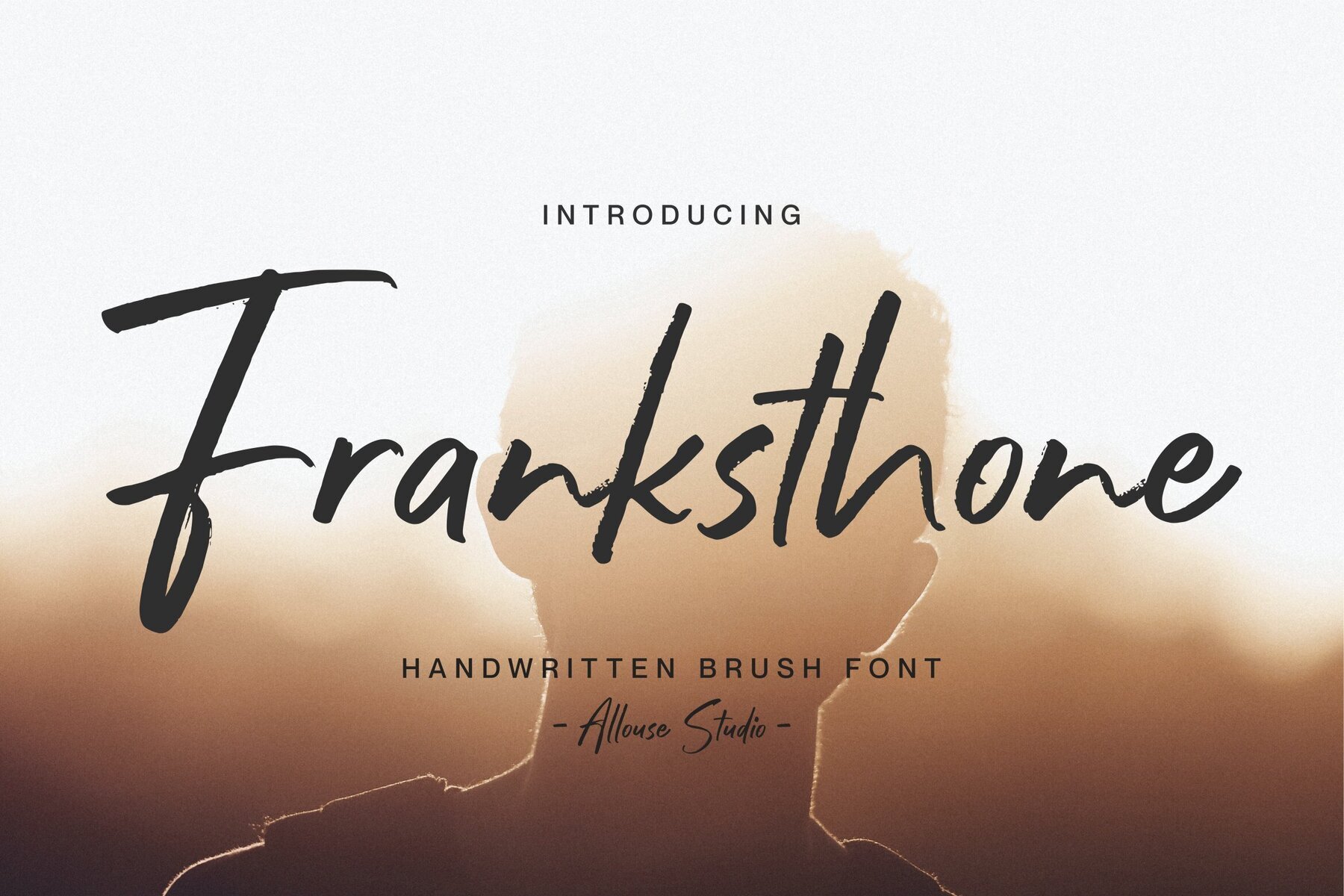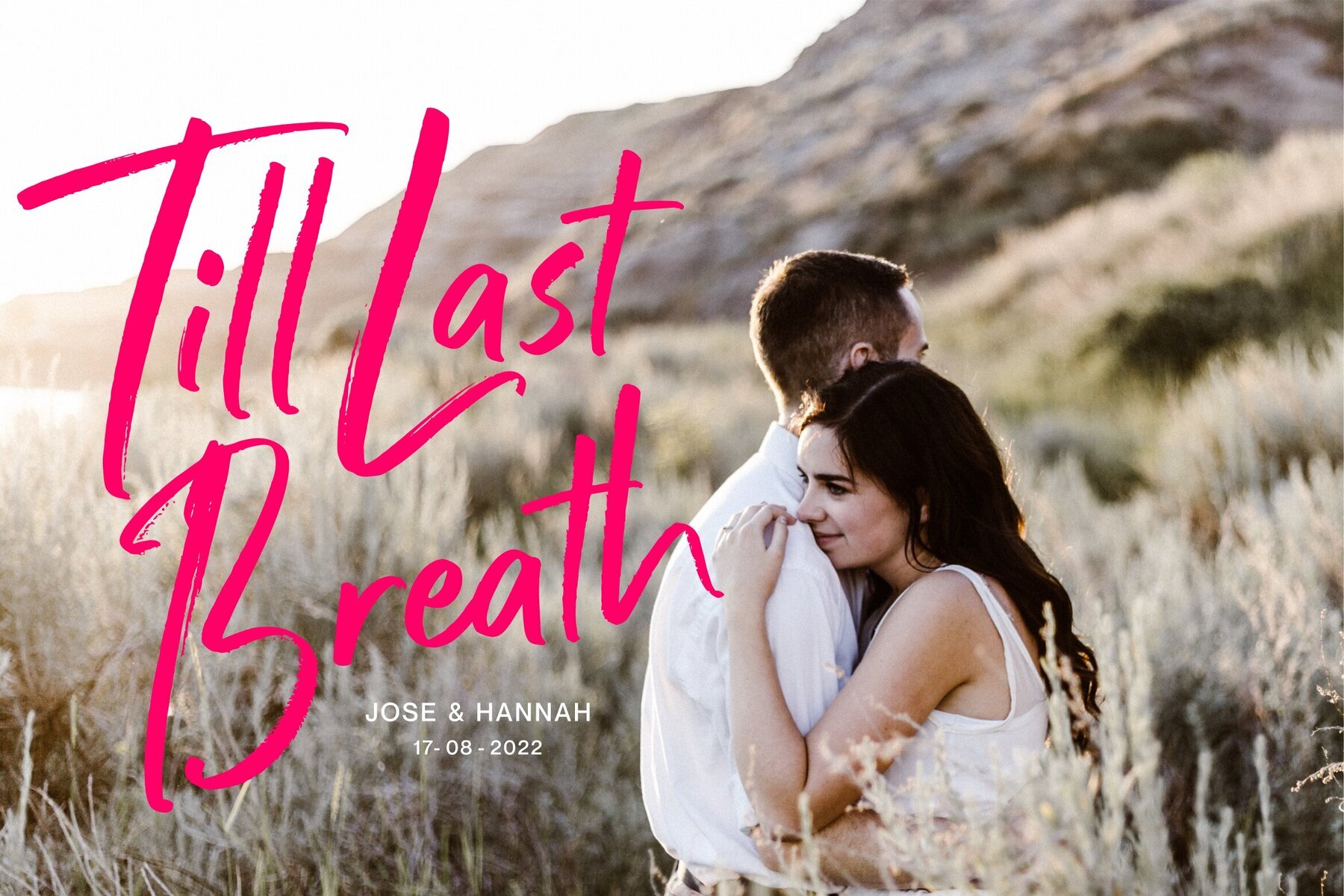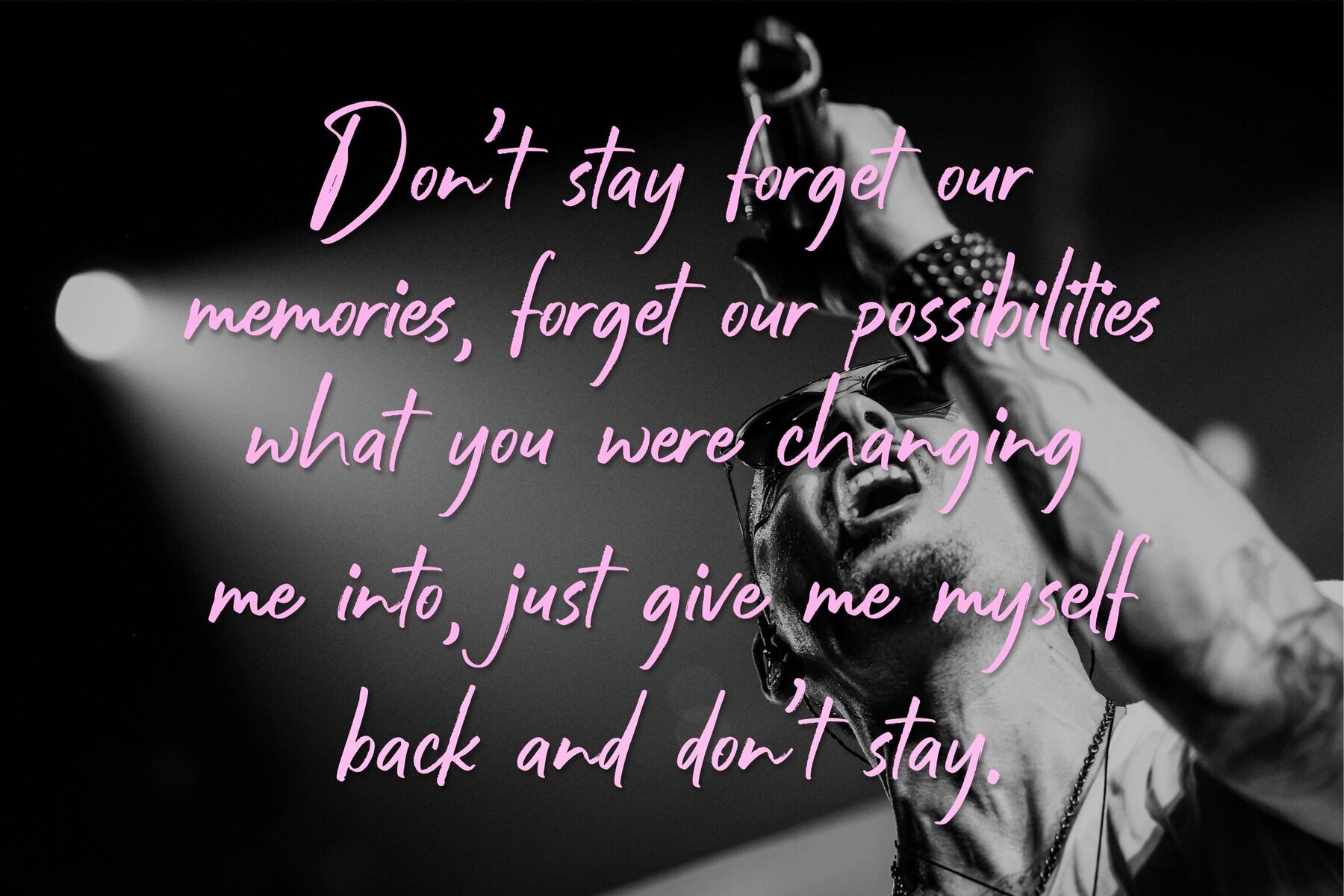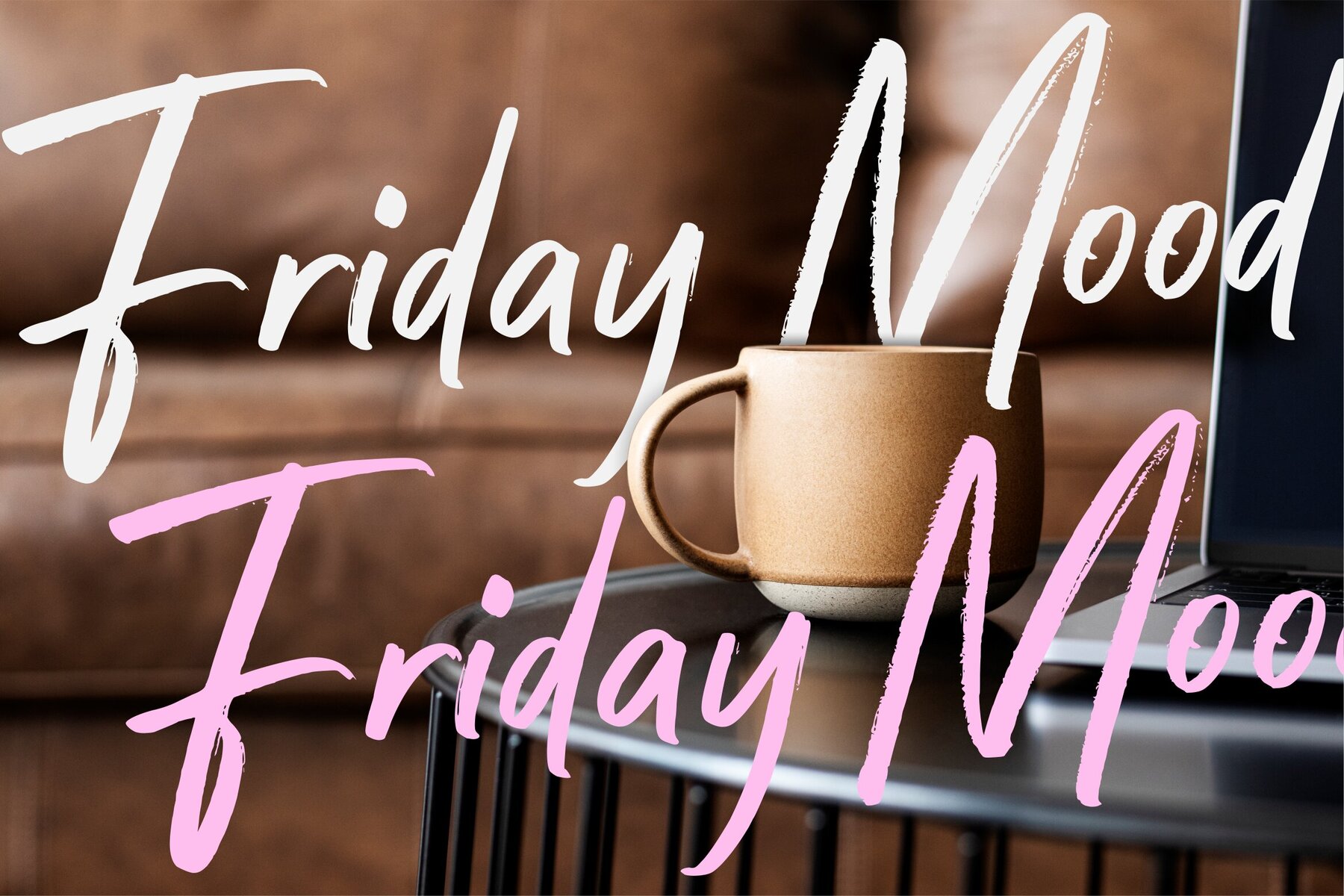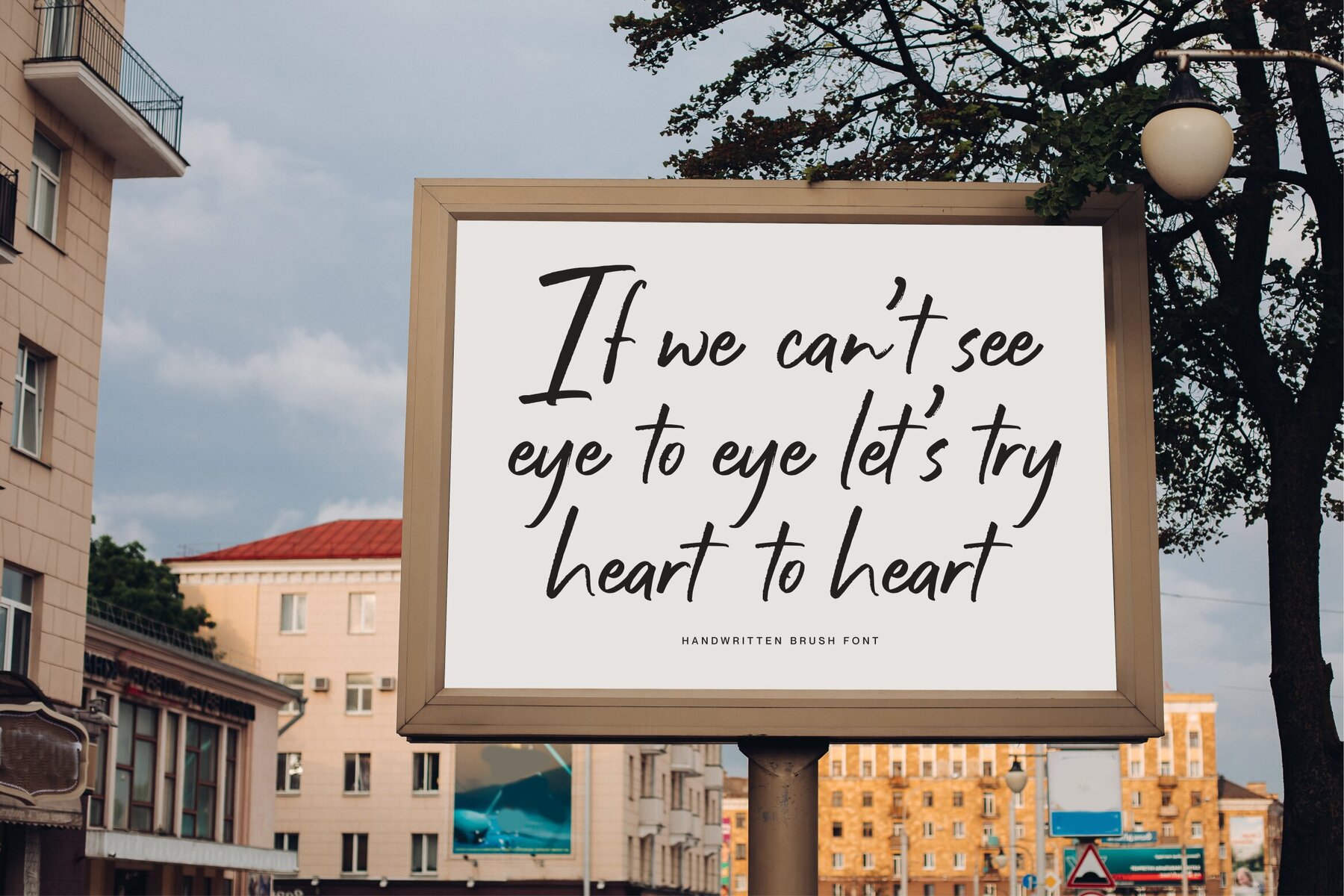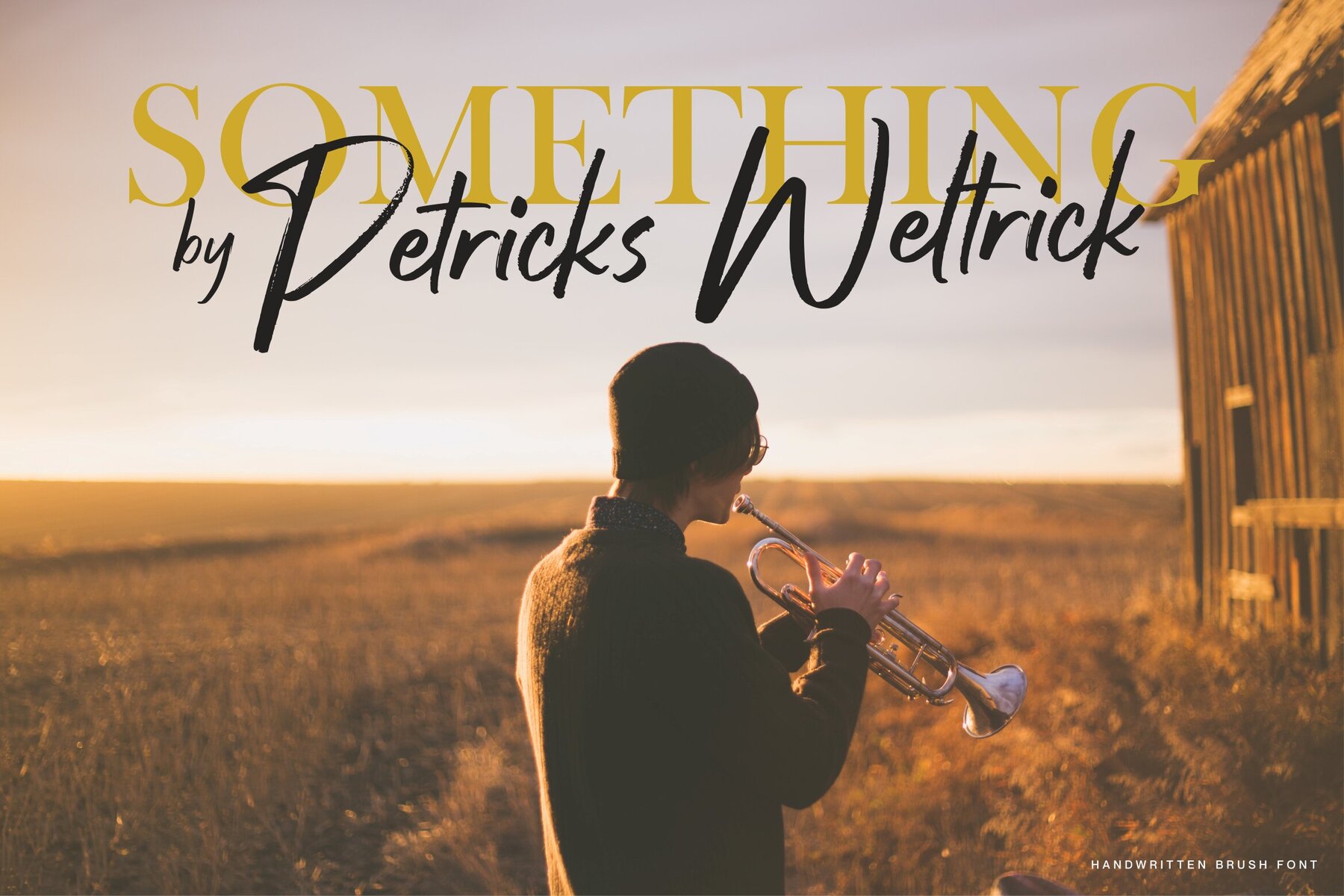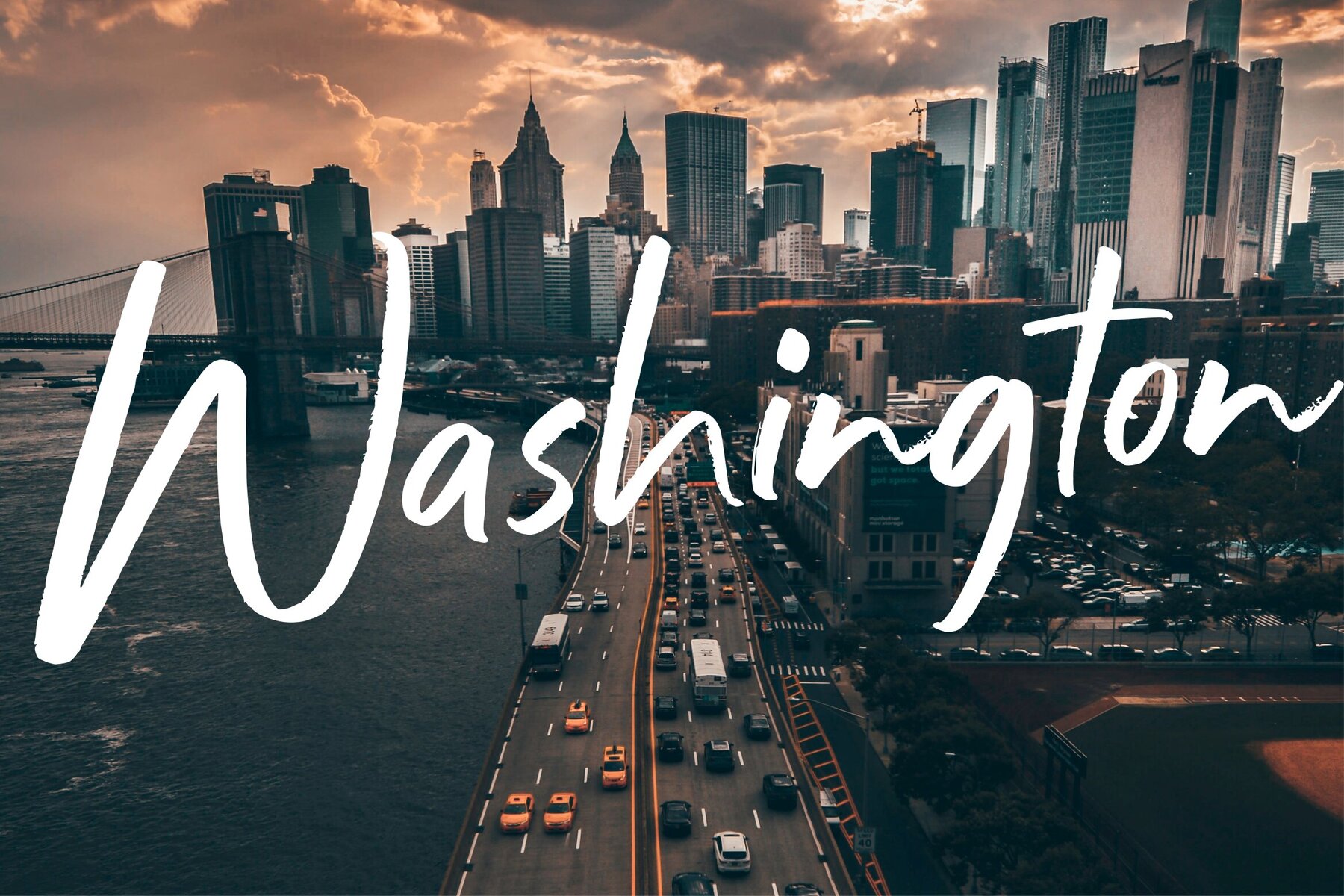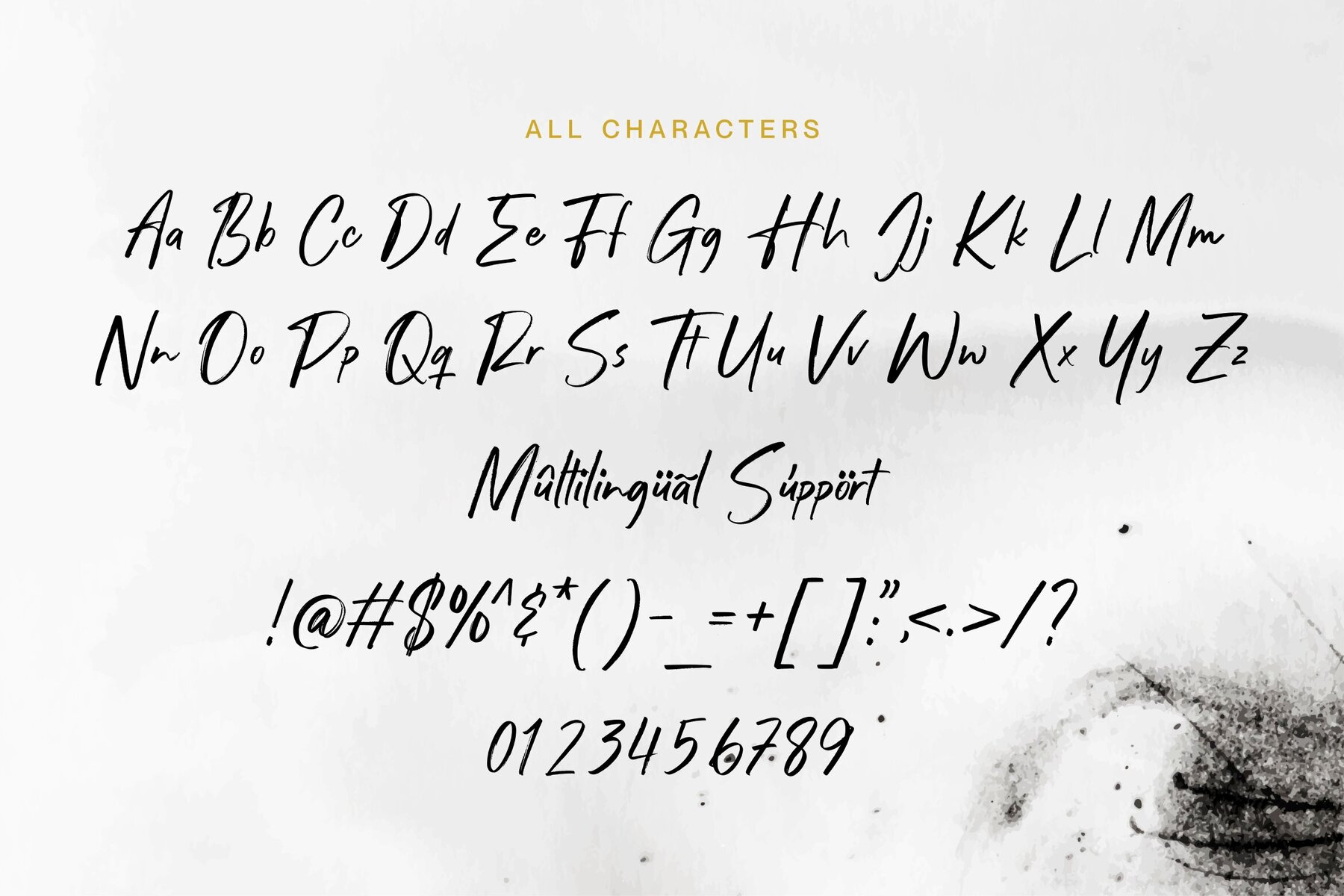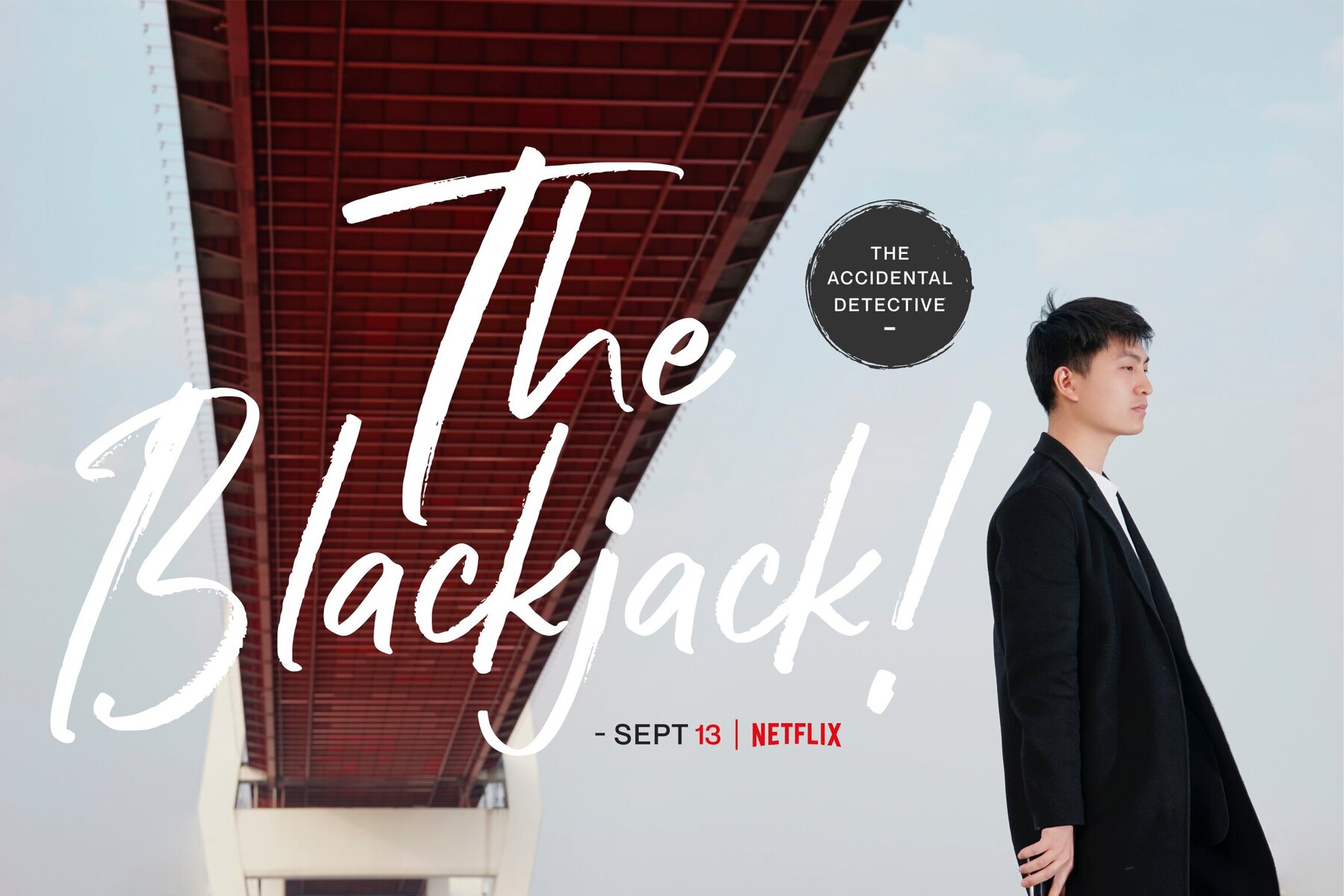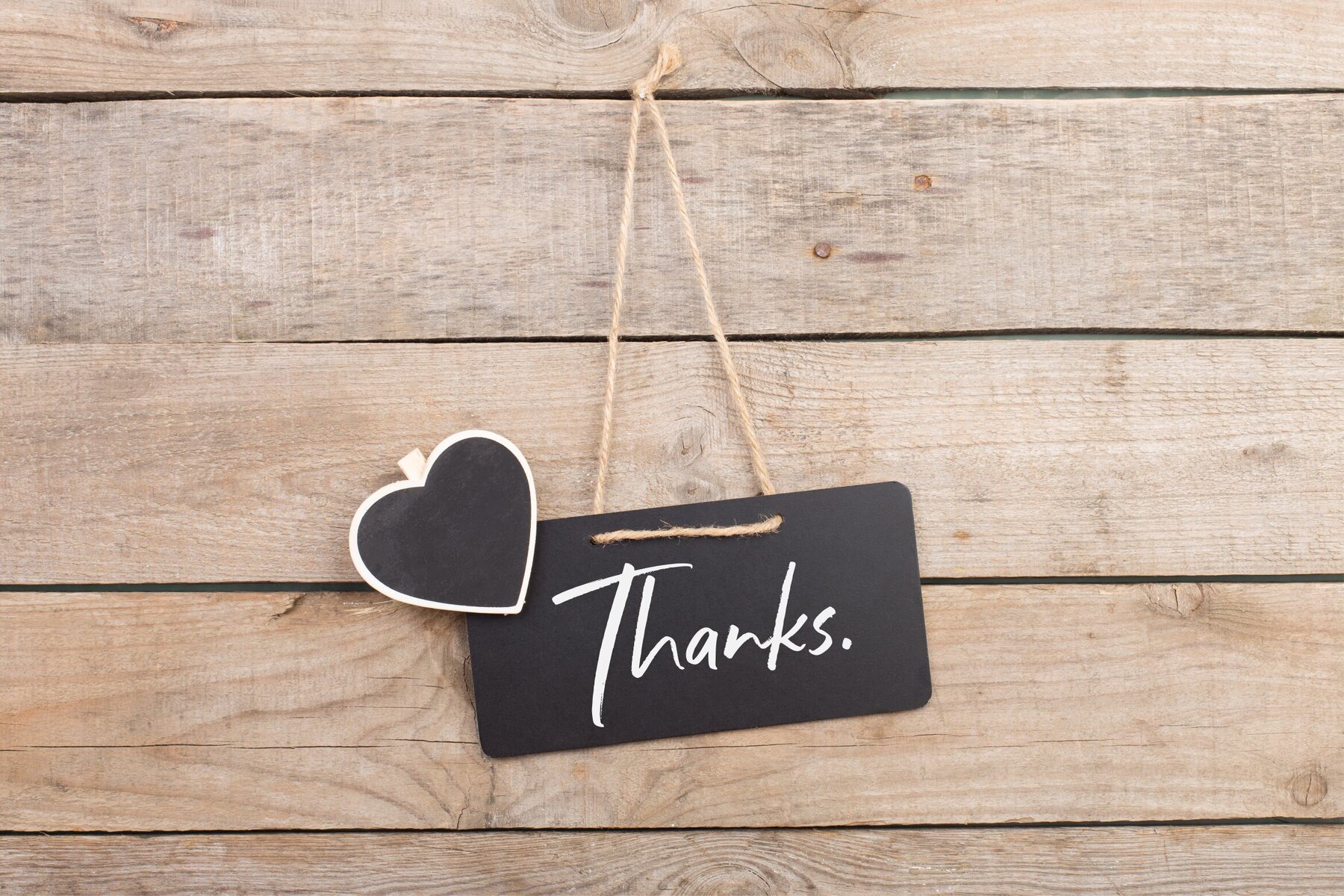
Franksthone: Versatile Design for Multiple Applications
Franksthone is an adaptable typeface crafted to meet the aesthetic demands of diverse projects. Its charm lies in its ability to seamlessly integrate into product packaging, branding ventures, magazines, social media, and even elegant wedding designs. Whether you're aiming to enhance visual storytelling or need a captivating accessory to a background, Franksthone rises to the occasion.
• Product Packaging
• Branding Projects
• Magazines
• Social Media Graphics
• Wedding Invitations